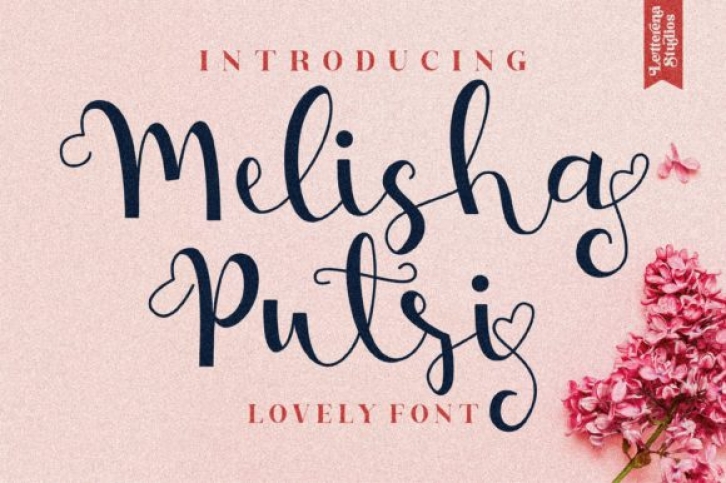
Melisha Putri is a sweet handwritten font with a romantic theme. Its natural and unique style makes it incredibly fitting to a large pool of designs. The only limit is your imagination!